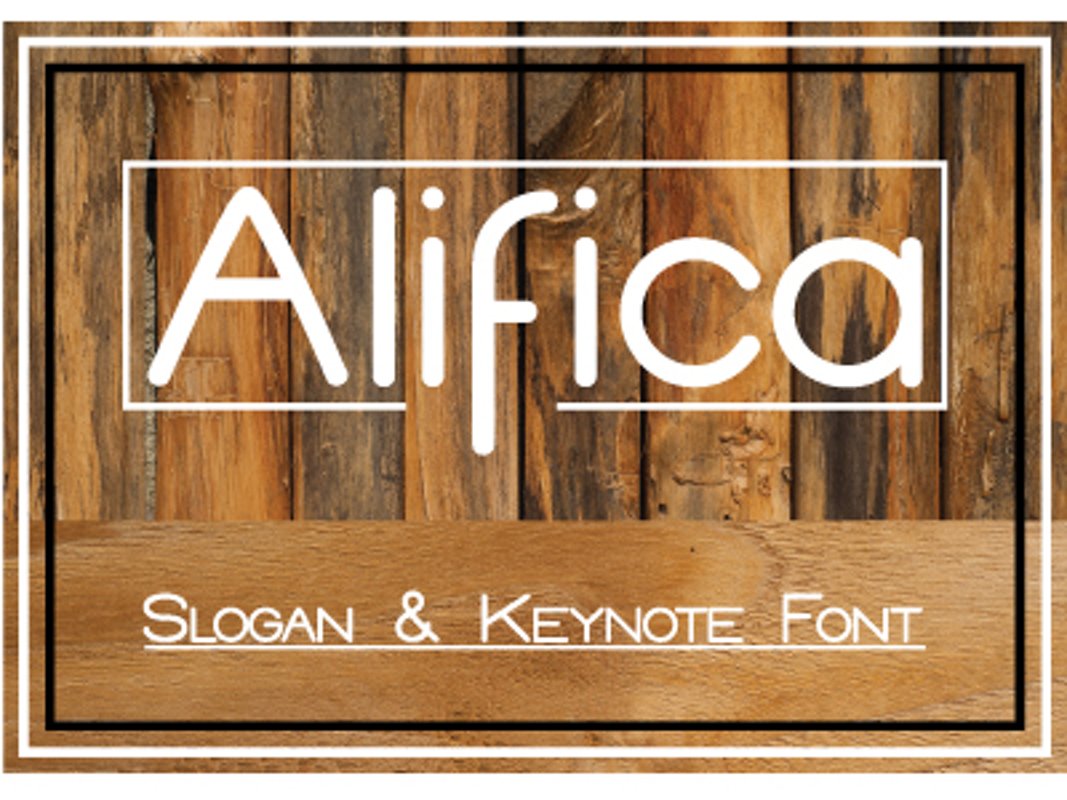
alisca
Alisca is a simple font, elegant and clean; this is a great font for body text, but looks exemplary as a display or headline given its weight options and simplicity of style.